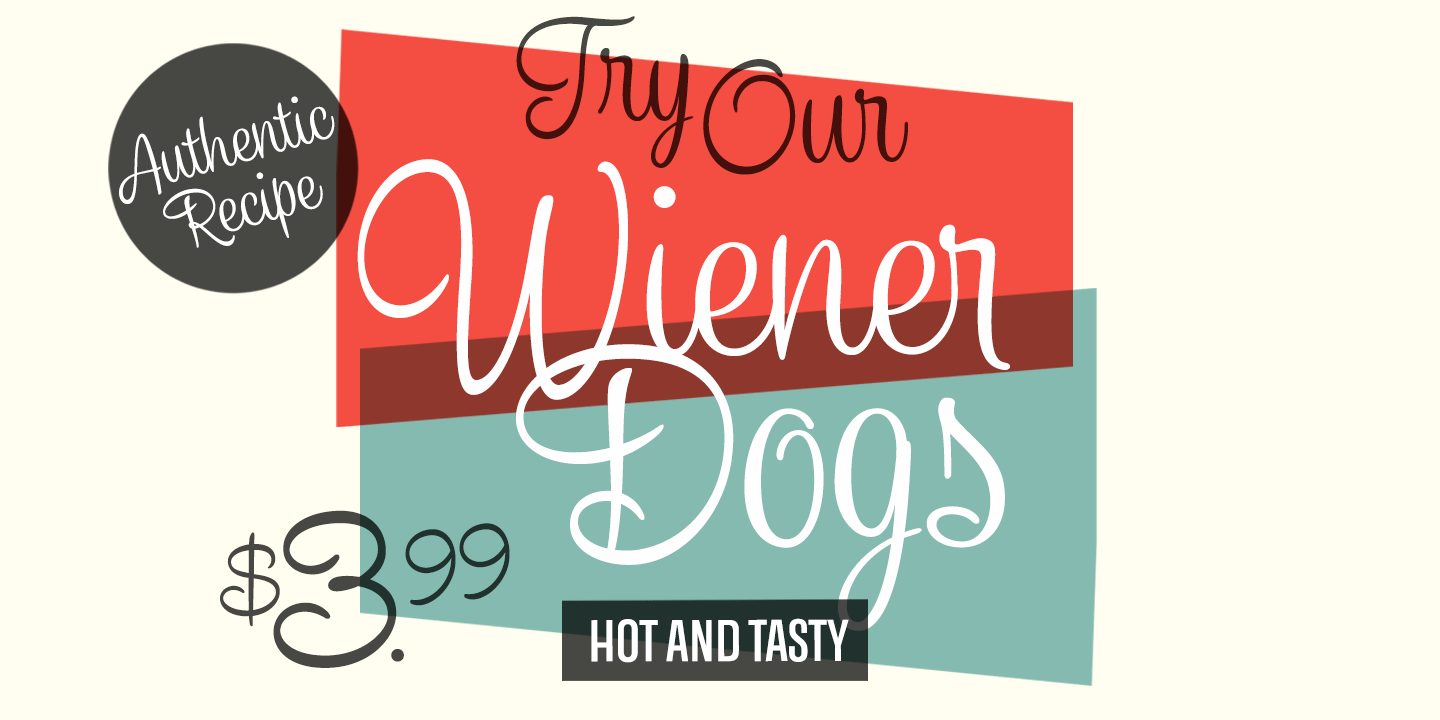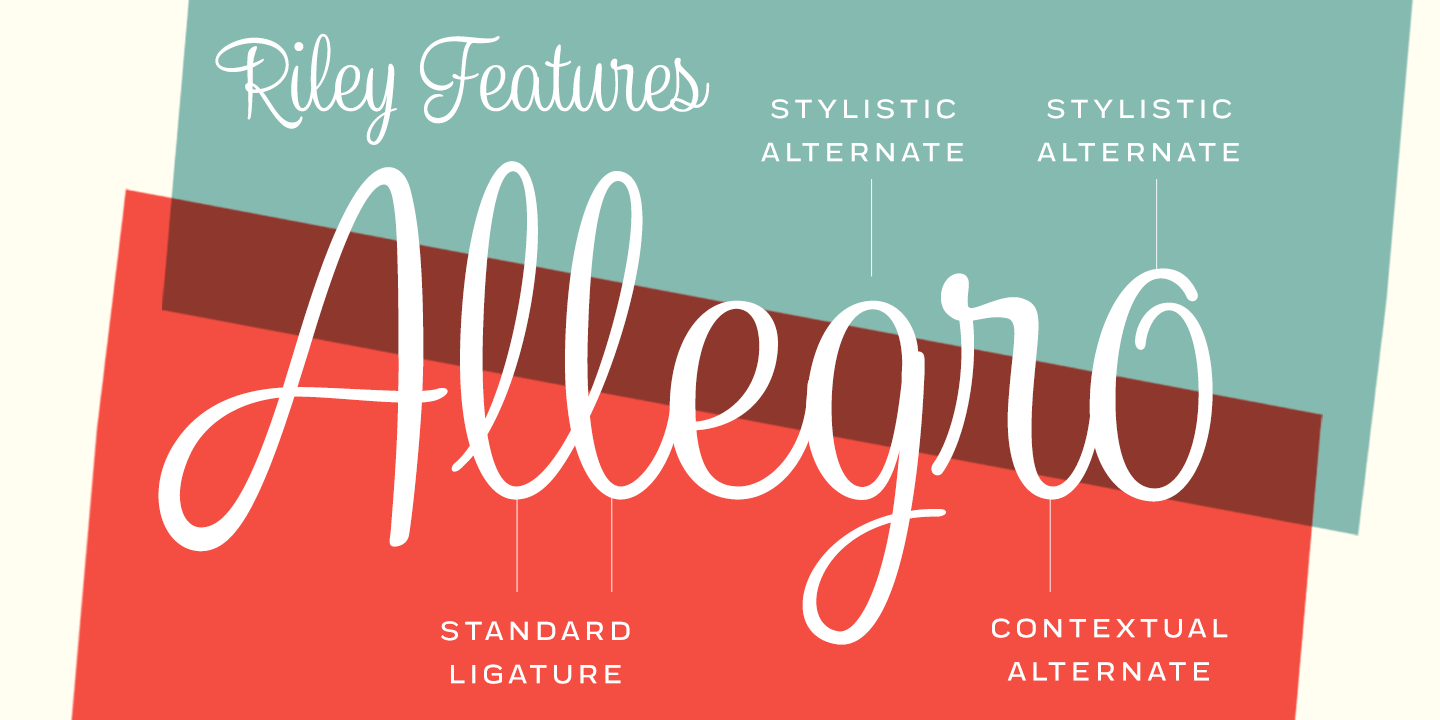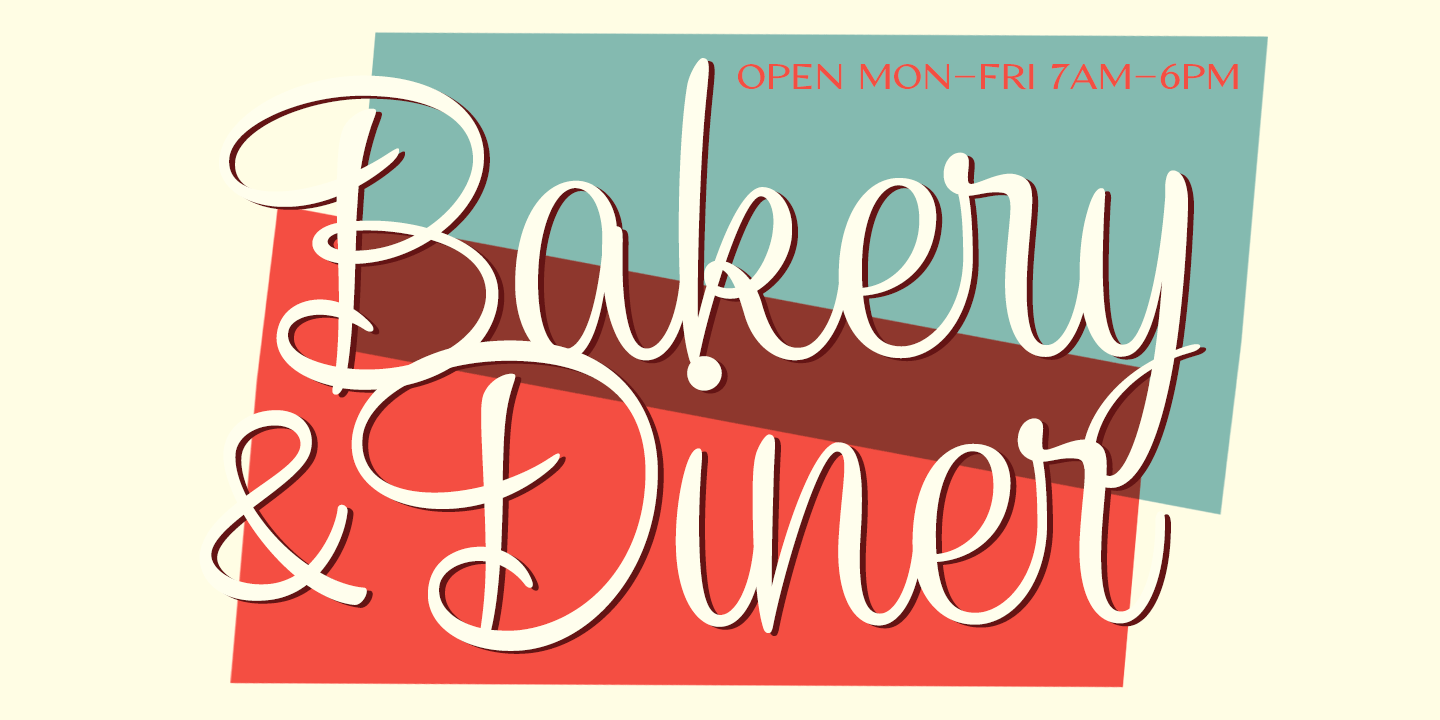
Riley is an elegant brush Script with its roots in the 1950s American sign painting. Riley has Stylistic Alternates for every lowercase standard character and it\’s equipped with Contextual Alternates and Ligatures that keep the flow and connections smooth.…